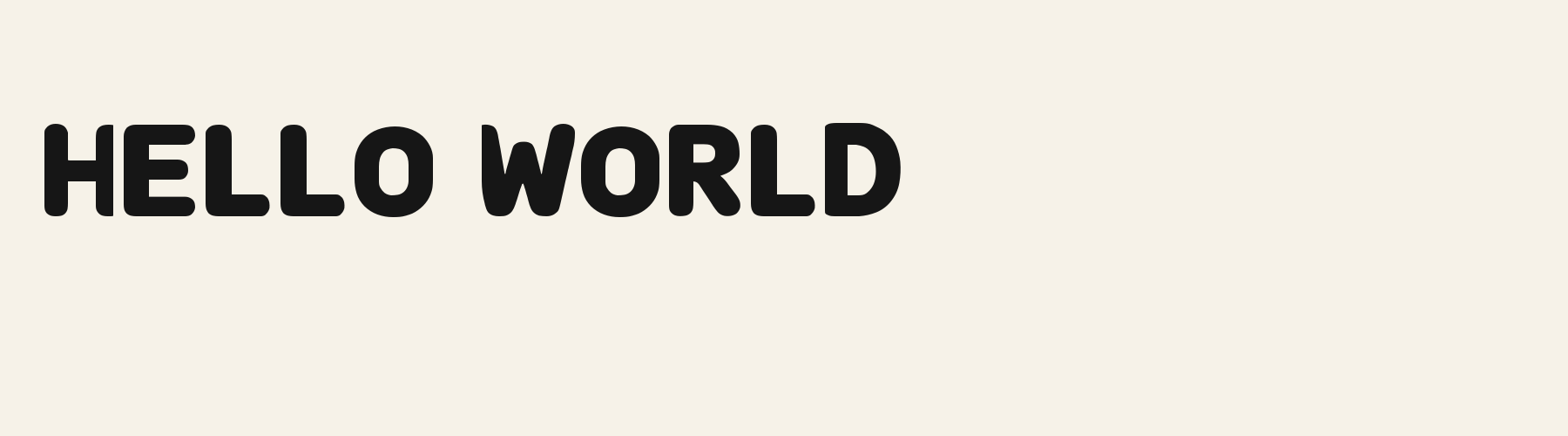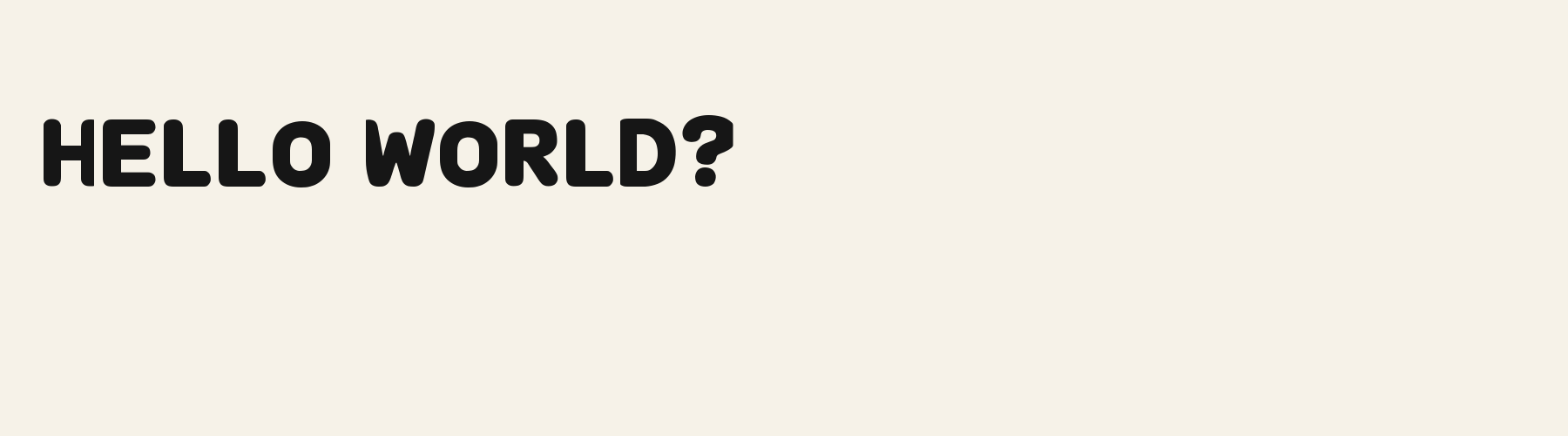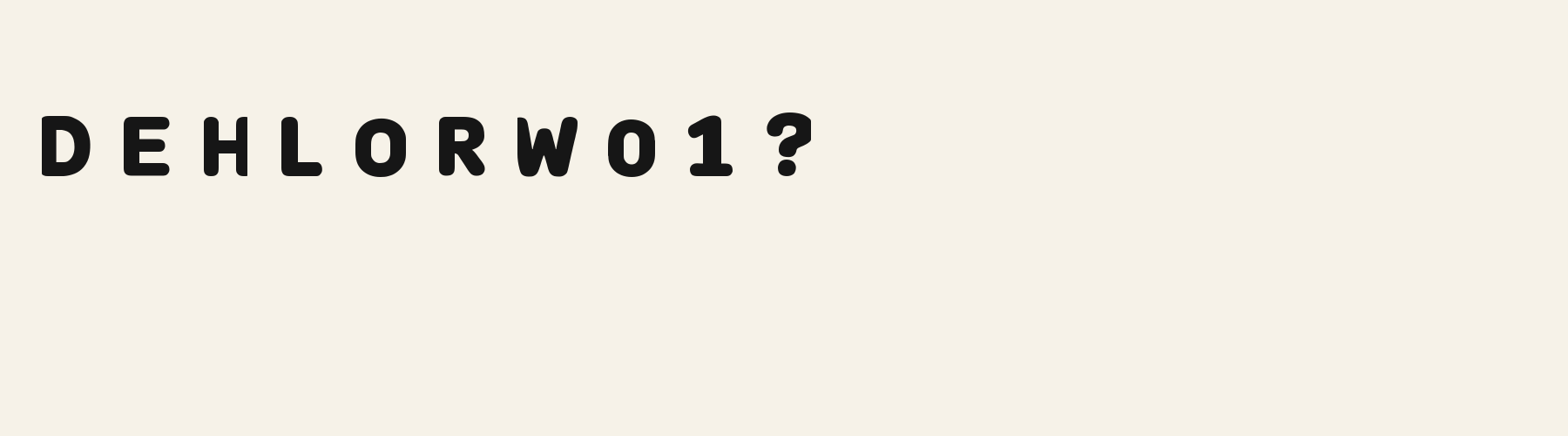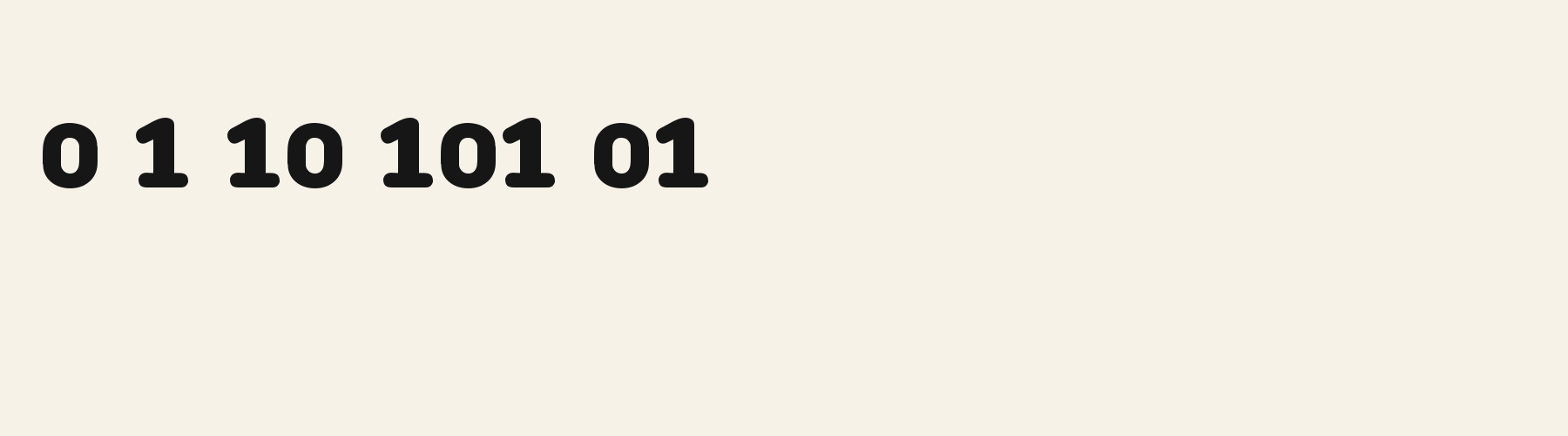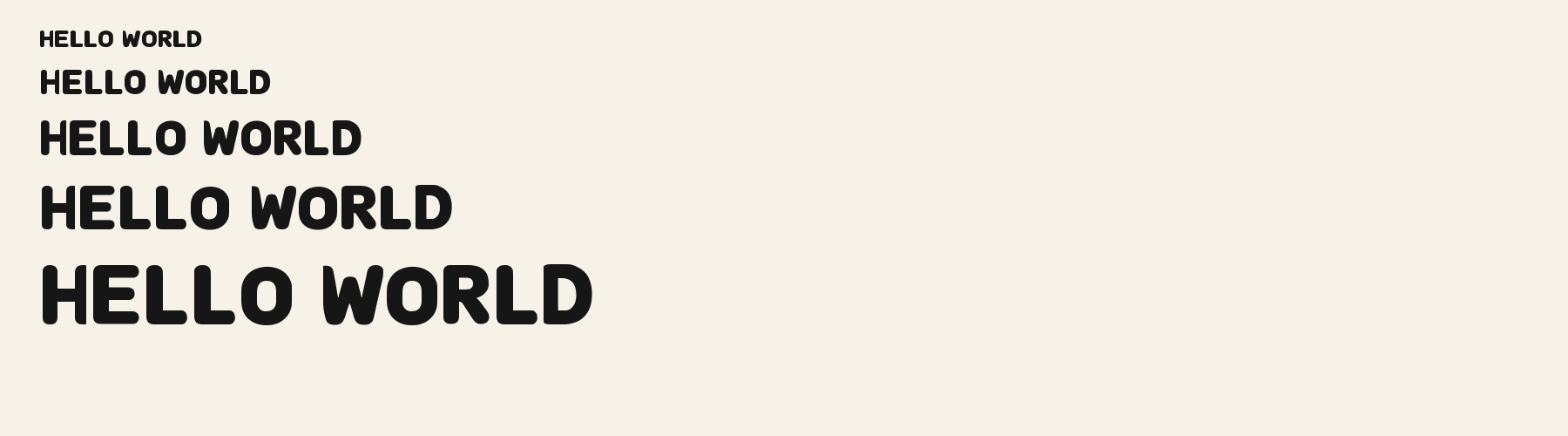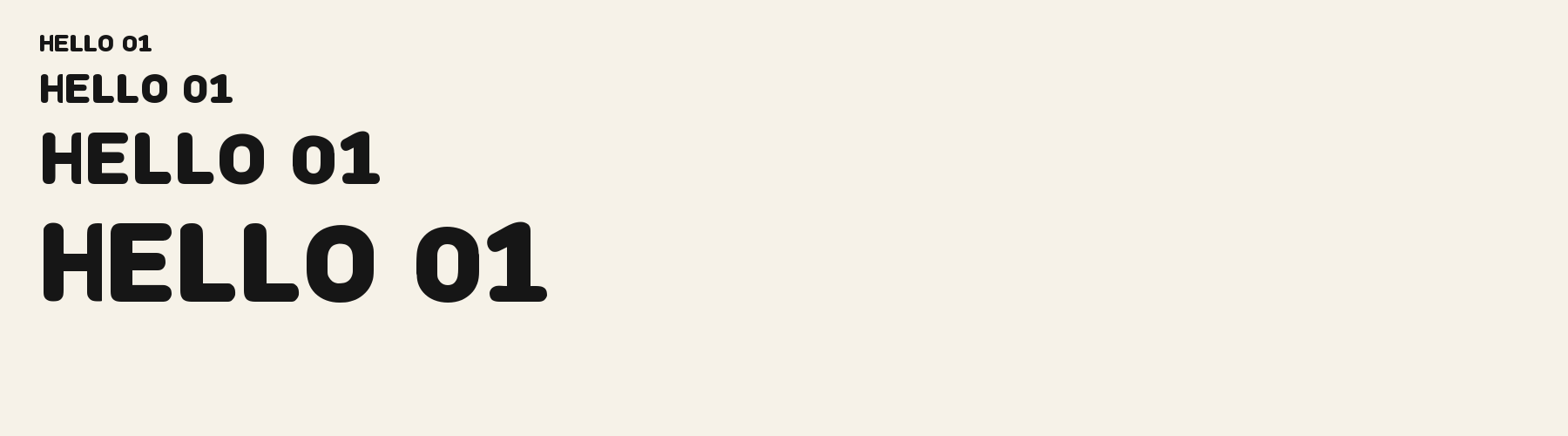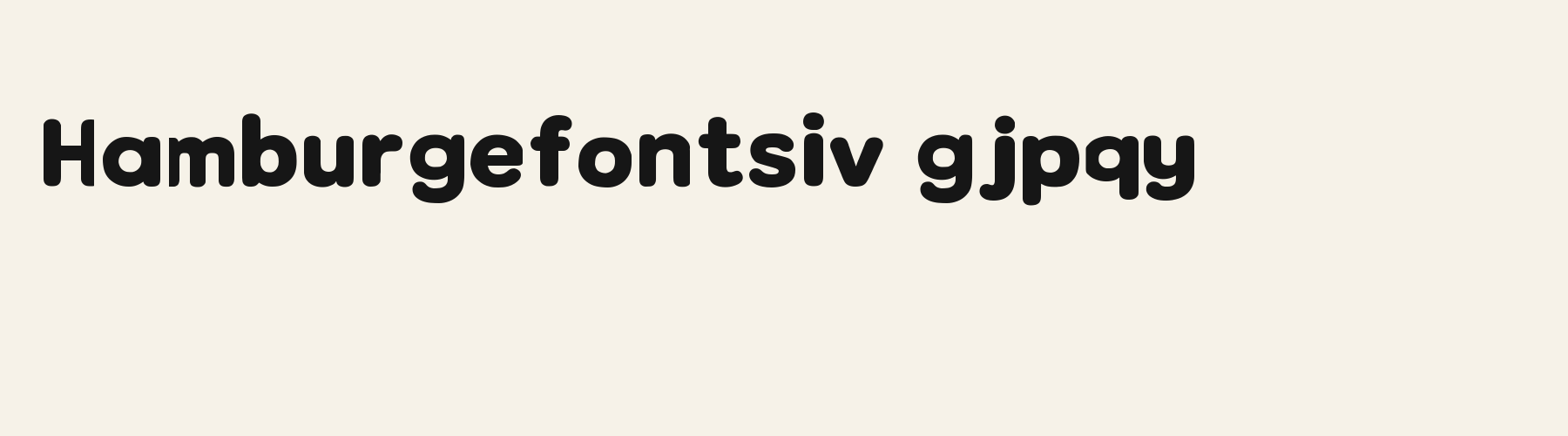
Pretty Bowline Soft
Retro Tv Rounded is a soft squared proportions, rounded corners, and roomy counters create a friendly television-title display face with restrained bounce. Stroke weight and contrast are not specified in the brief. Best for show cards, playful headlines, and packaging.